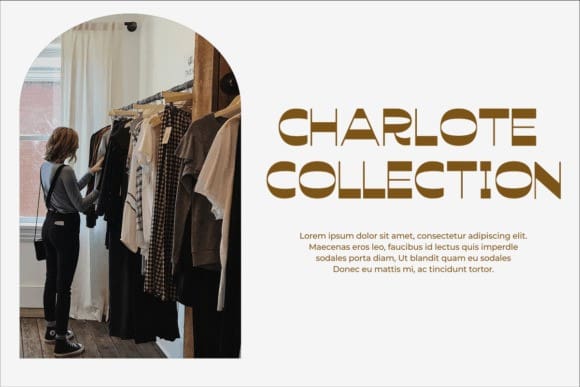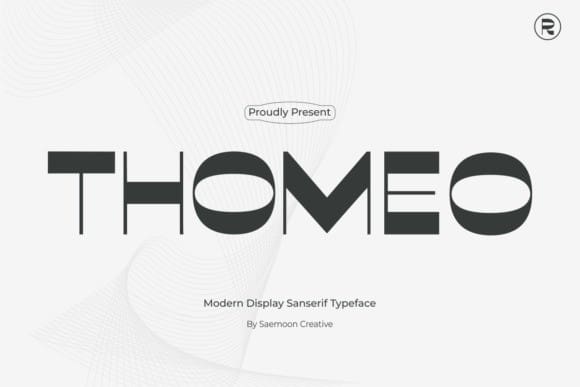
Thomeo Font
Thomeo Font is a striking blend of modernity and uniqueness, crafted for standout display purposes. With its sleek lines and distinct shapes, it captivates attention effortlessly. Perfect for logos, branding, and headlines, Thomeo adds a touch of contemporary flair to any design project.